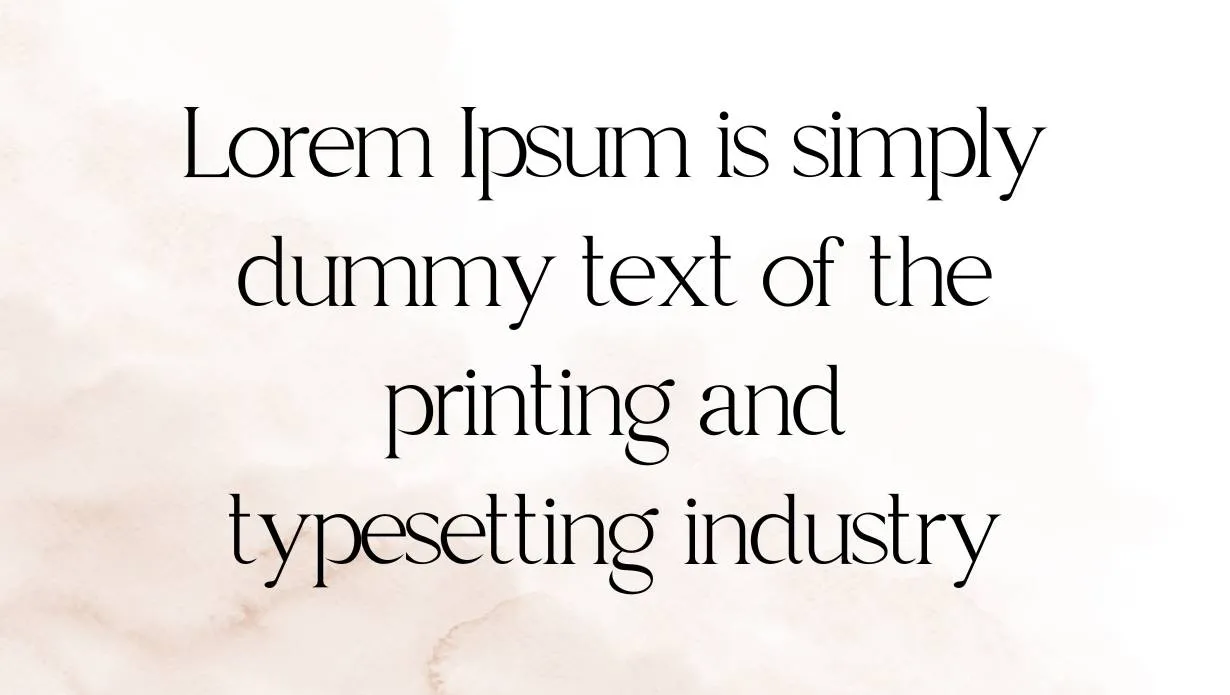
Presenting Wondar Quason Font, it is a modern and classic Serif font that was designed by Gilang Maulana and released by Maulana Creative.
This typeface is a combination of both contemporary and traditional typography with some elegant hand touch. This typeface is available in TTF and OTF formats.
Wondar Quason Font Family